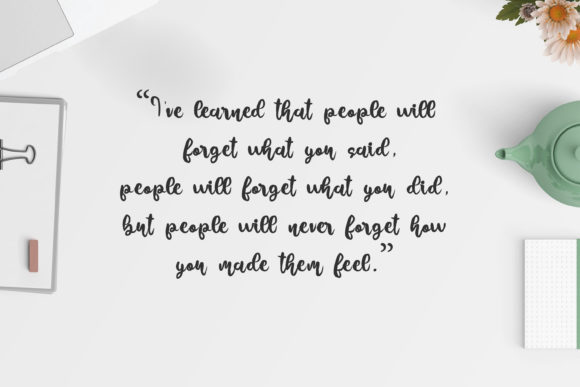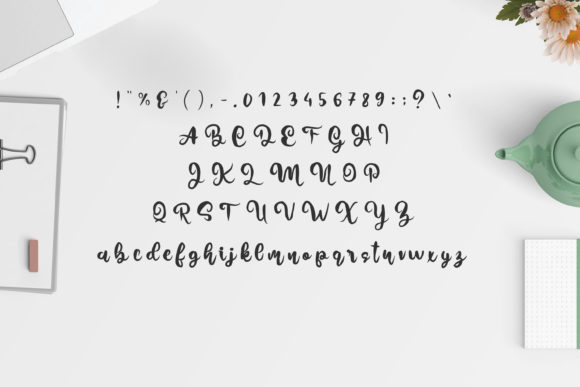
Biwak Font
About Biwak Font
Biwak is a sweet and friendly handwritten font, designed with the help of a thick brush pen. Fall in love with its flowing style and create spectacular contexts!